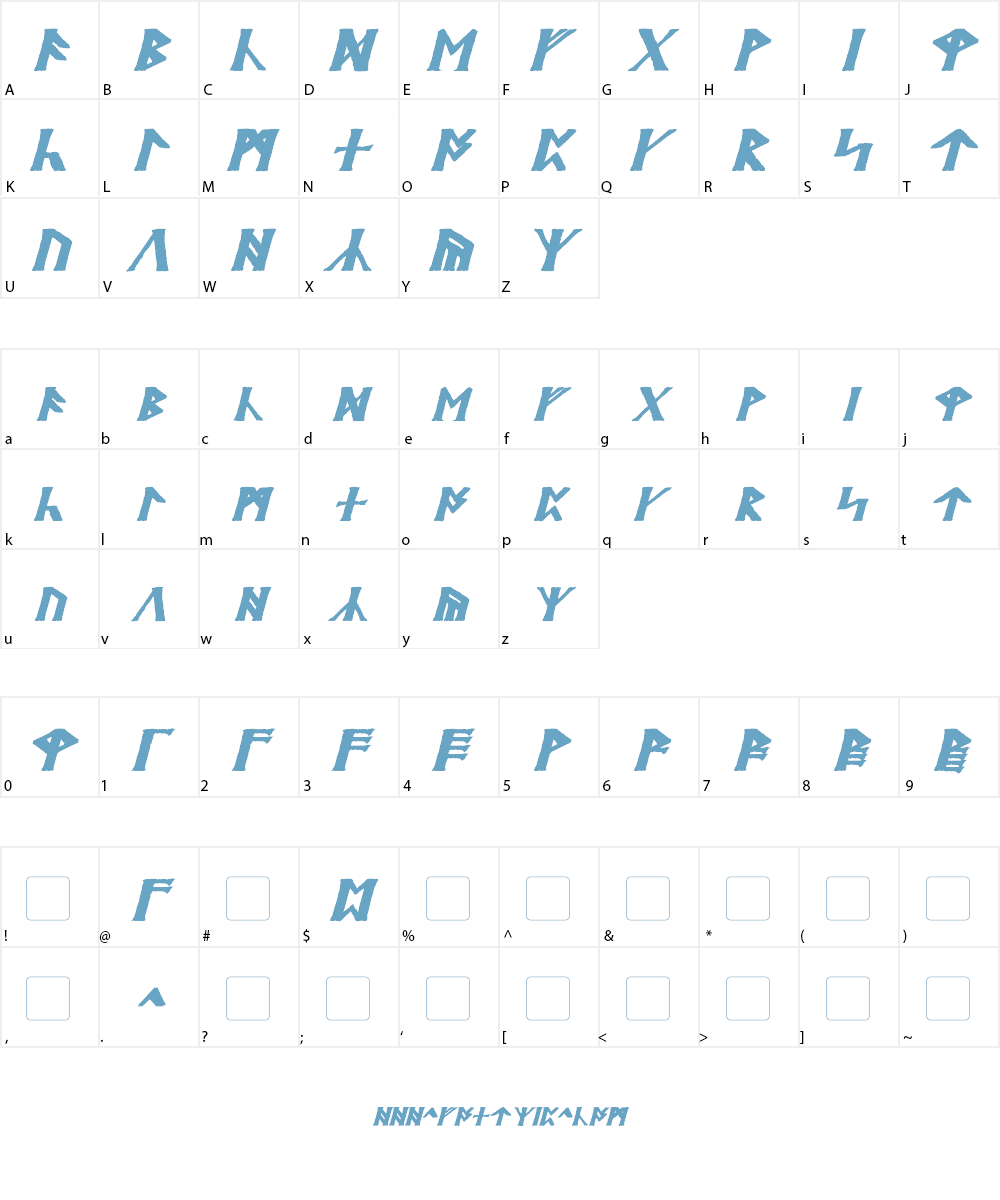
Britannian is an ‘Northern-Runic’ styled face based on the ancient runic language provided by the legendary Origin Systems Ultima games. Includes canon character, and adopted fandom numerals. Includes regular, bold, italic, and bold-italic weights.